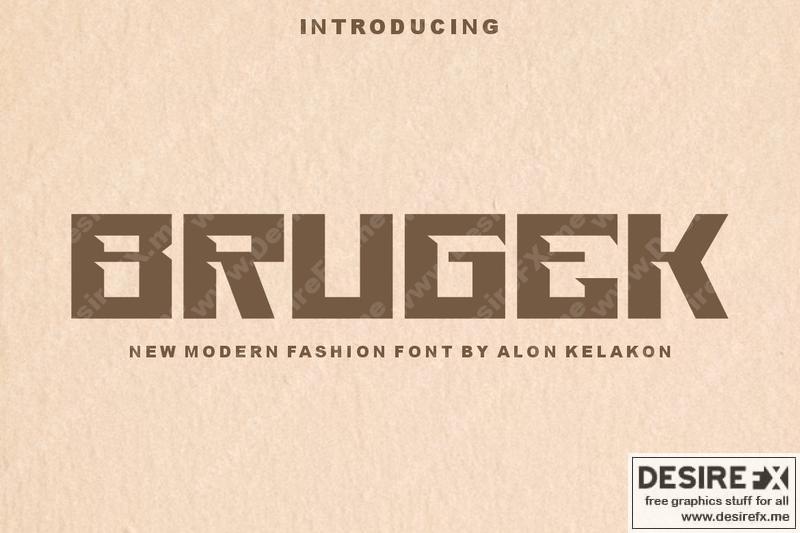
Brugek 88HGJ2Z
Brugek Font is unique . Ready to use for your design like labeling, clothing, movie sceen, poster, movie title, gigs, album covers, logos, and much more.